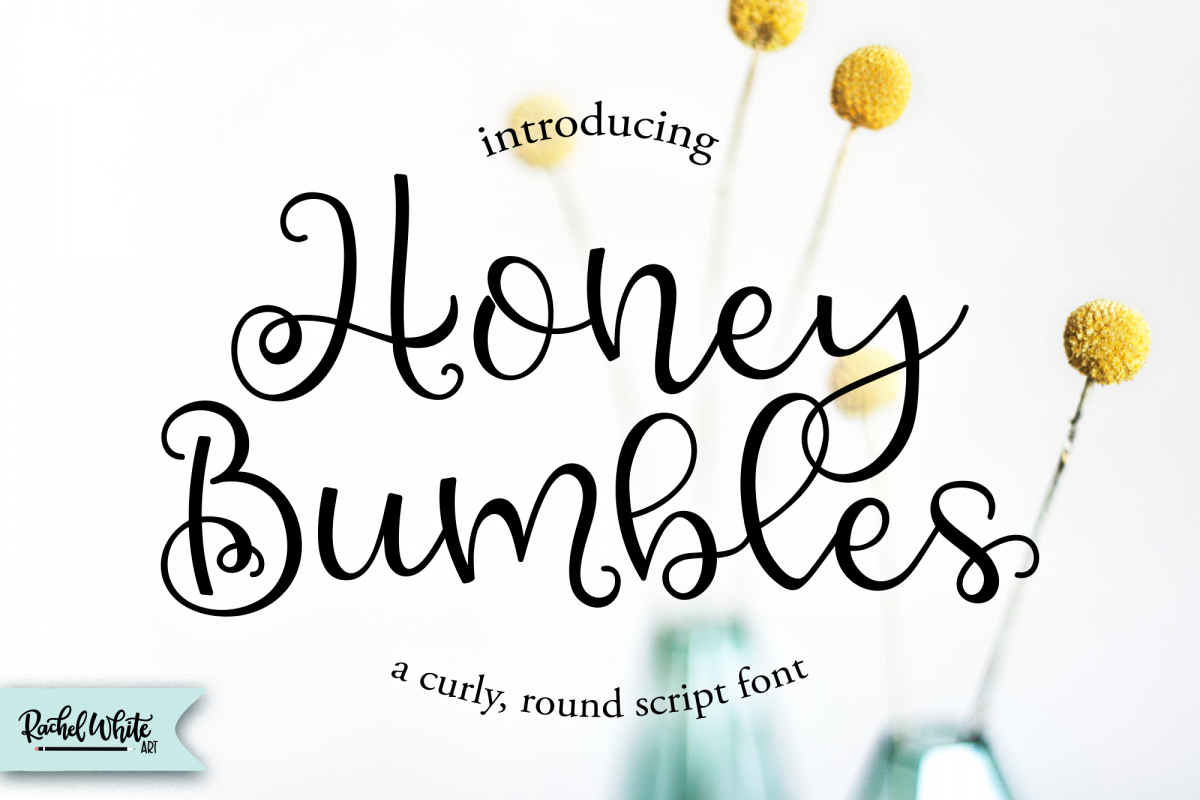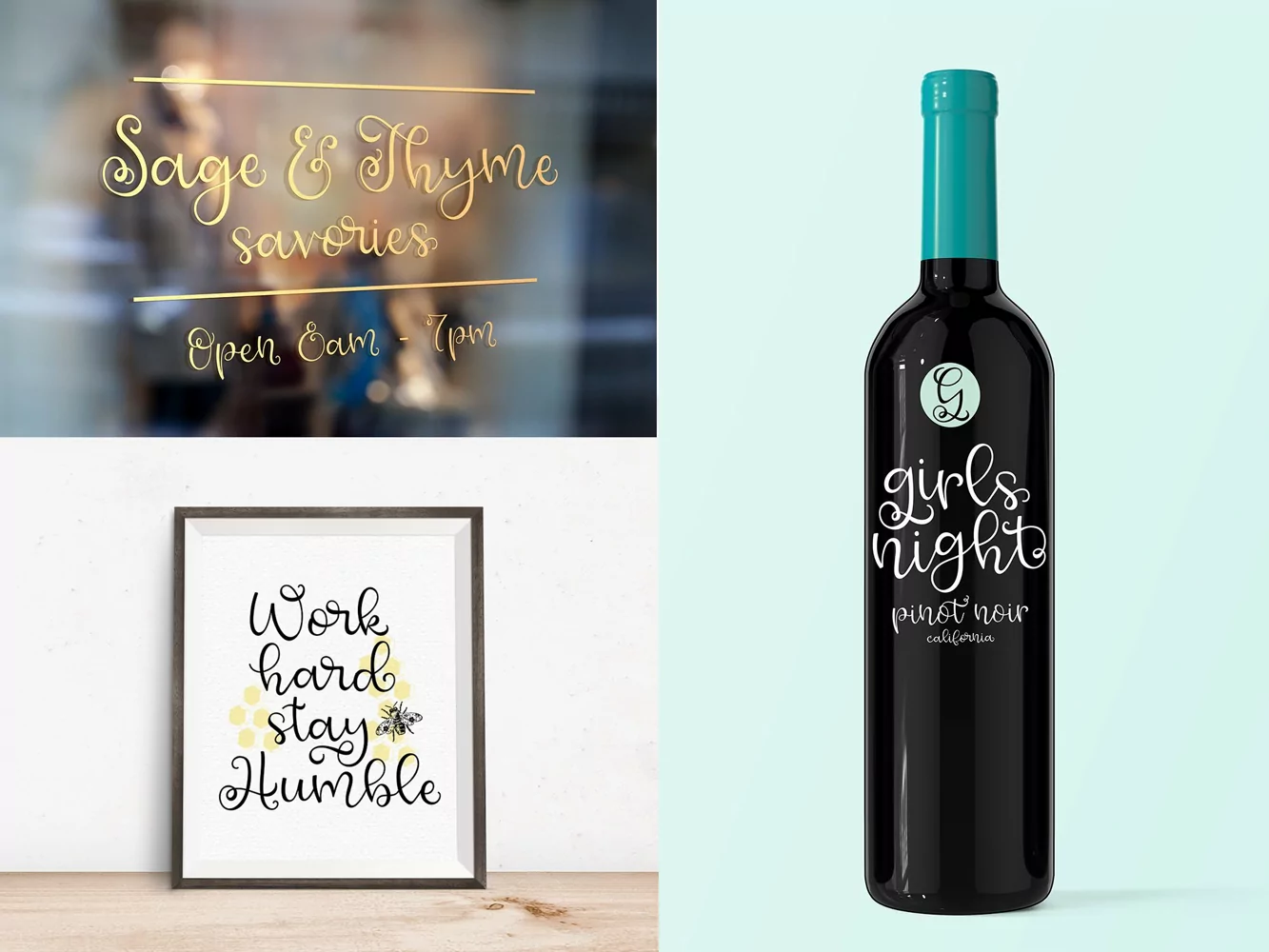
Honey Bumbles, a curly, round script font, Best Seller
Honey Bumbles is one of my best selling fonts! It has sweet curls, very round loops, and lots of fun alternates and ligatures to create amazing designs. It is super smooth and fully PUA encoded - so crafters and cutting machines will love it too.
Every character is special, and has unique curves, swirls, and loops.
- alternate glyphs for selected characters
- initial lowercase alternates for shown characters
- terminal lowercase alternates for shown characters
- ligatures for selected double letter combinations
- 4 options for ampersands